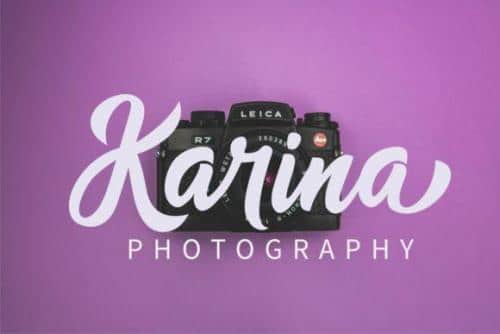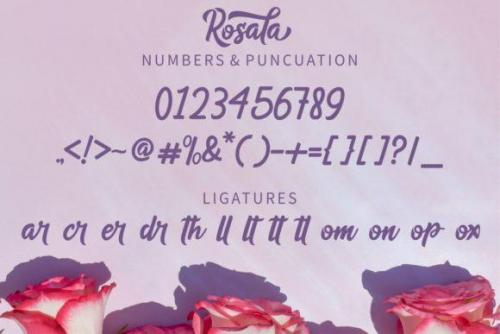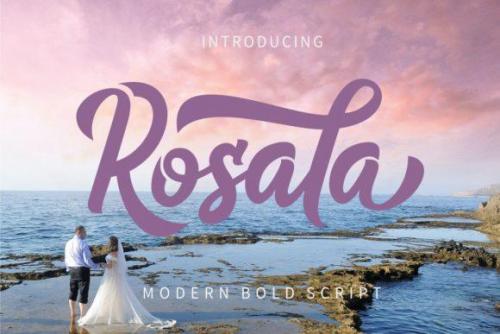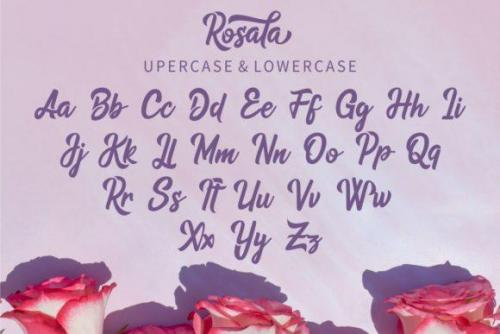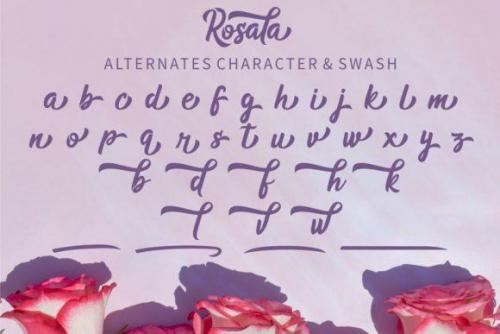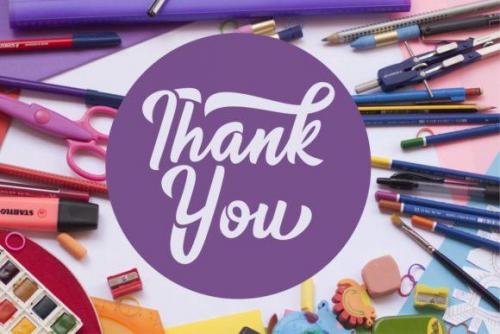
Rosala Script Font is a simple and friendly handwritten typeface. Its bold and smooth style makes this font incredibly versatile, fitting a wide variety of creative ideas.
This typeface is a handwriting font that has a great style. Rosala is perfect for logos, branding, photography, invitations, stationery, wedding designs, labels and more!